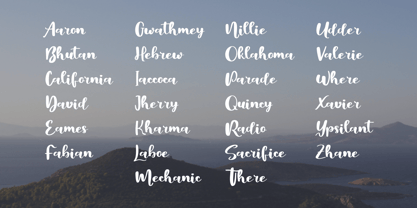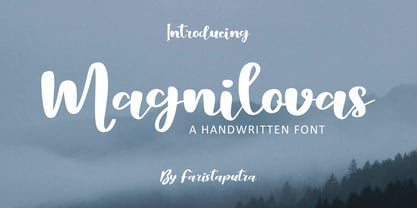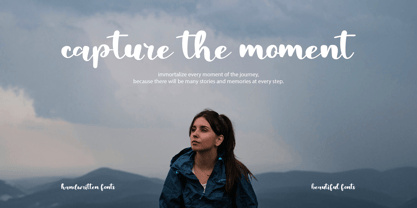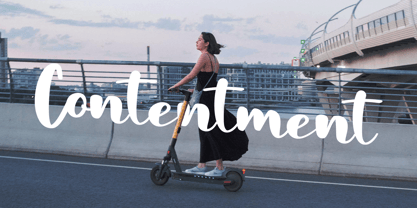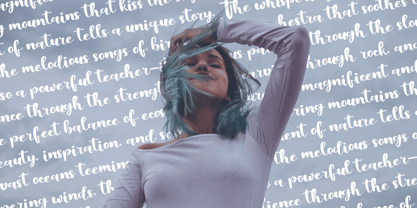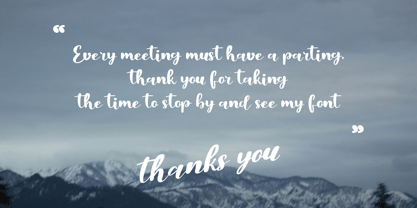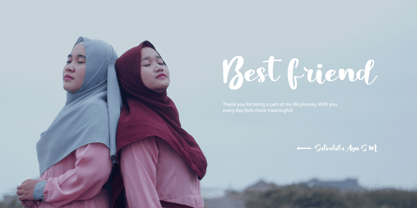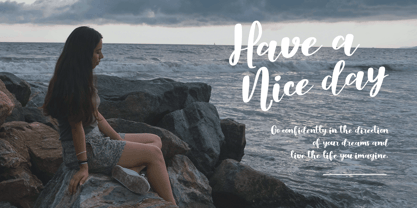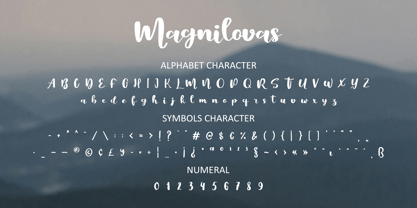
FA Magnilovas
by Faristaputra
The FA Magnilovas Font Family was designed by Frederik Aristaputra and published by Faristaputra. FA Magnilovas contains 3 styles and family package options.
Magnilovas is a handwriting font that exudes elegance and beauty in every stroke. With naturally flowing lines, this font brings a personal and artistic touch that is perfect for various design projects.
Crafted with a delicate balance between softness and boldness, Magnilovas is ideal for branding, wedding invitations, editorials, and any design that seeks a luxurious and exclusive feel. Its beauty is not only reflected in its captivating letterforms but also in its ability to create a warm and distinctive atmosphere.